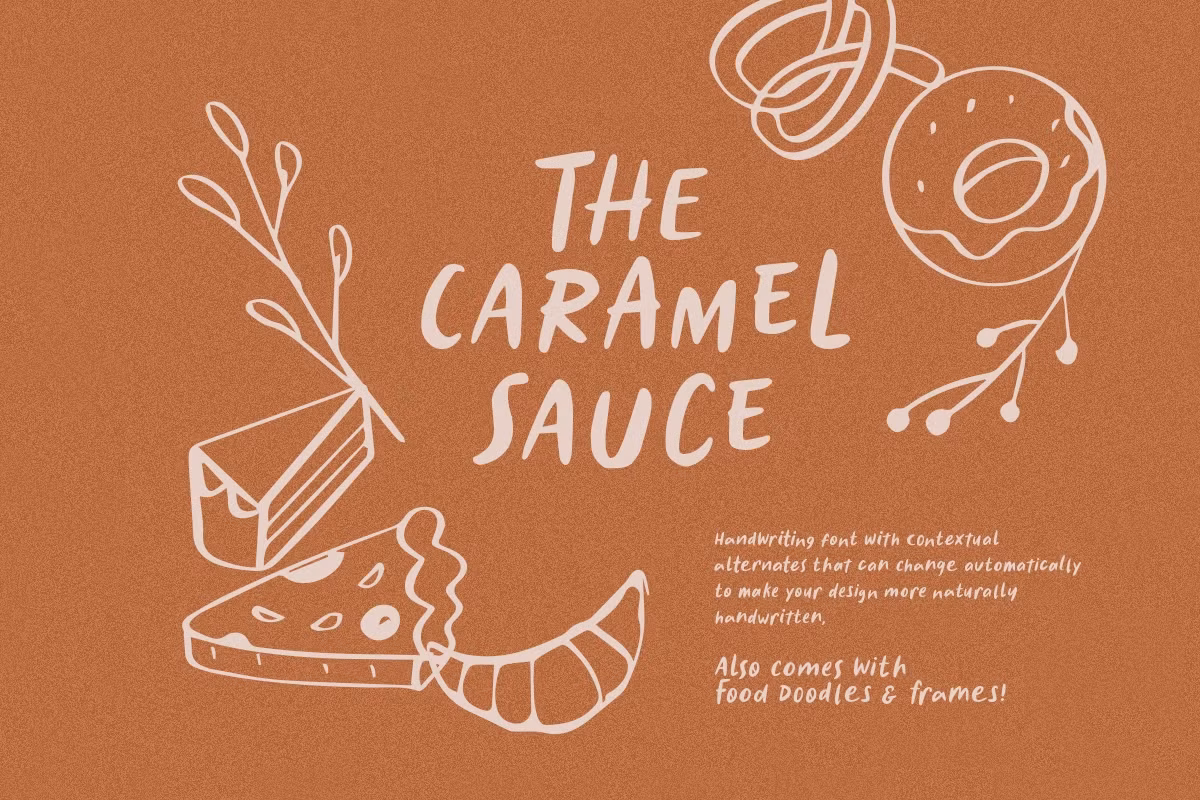
Caramel Sauce Font + Doodle Free Download
Caramel Sauce Font + Doodle Free Download is a playful and charming typeface set that combines a smooth, handwritten script with cute, whimsical doodles. With its sweet, flowing lines and delightful embellishments, this font is perfect for projects like invitations, branding, product packaging, social media graphics, and more. Whether you’re creating something for a fun event, a handmade business, or any creative project, Caramel Sauce adds a personal and joyful touch.
The set also includes adorable doodles, adding an extra layer of creativity to your designs. These doodles are great for enhancing the font's overall charm and creating more engaging visual content.
Sweeten your designs with the delightful style and whimsy of Caramel Sauce!